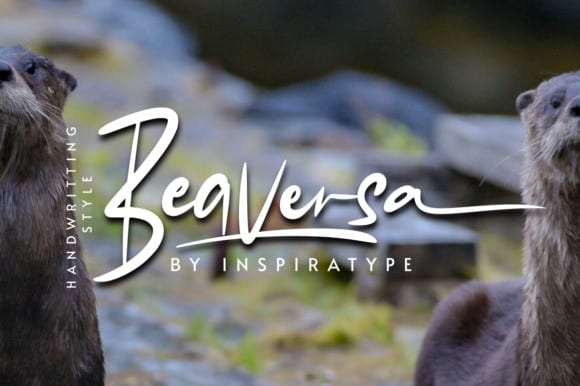
Beaversa Script Font
Beaversa Script Font is a casual script typeface and combination with Hand Lettering style which gives more handwriting touch and makes the font looks being customized. It’s designed and shared by Inspiratype Studio. comes with uppercase, lowercase, numerals, punctuations and so many variations on each character include OpenType alternates, common ligatures and also additional swash to let you customize your designs. Perfect to use for Logotype, Letterhead, Poster, Apparel Design, Label and etc.